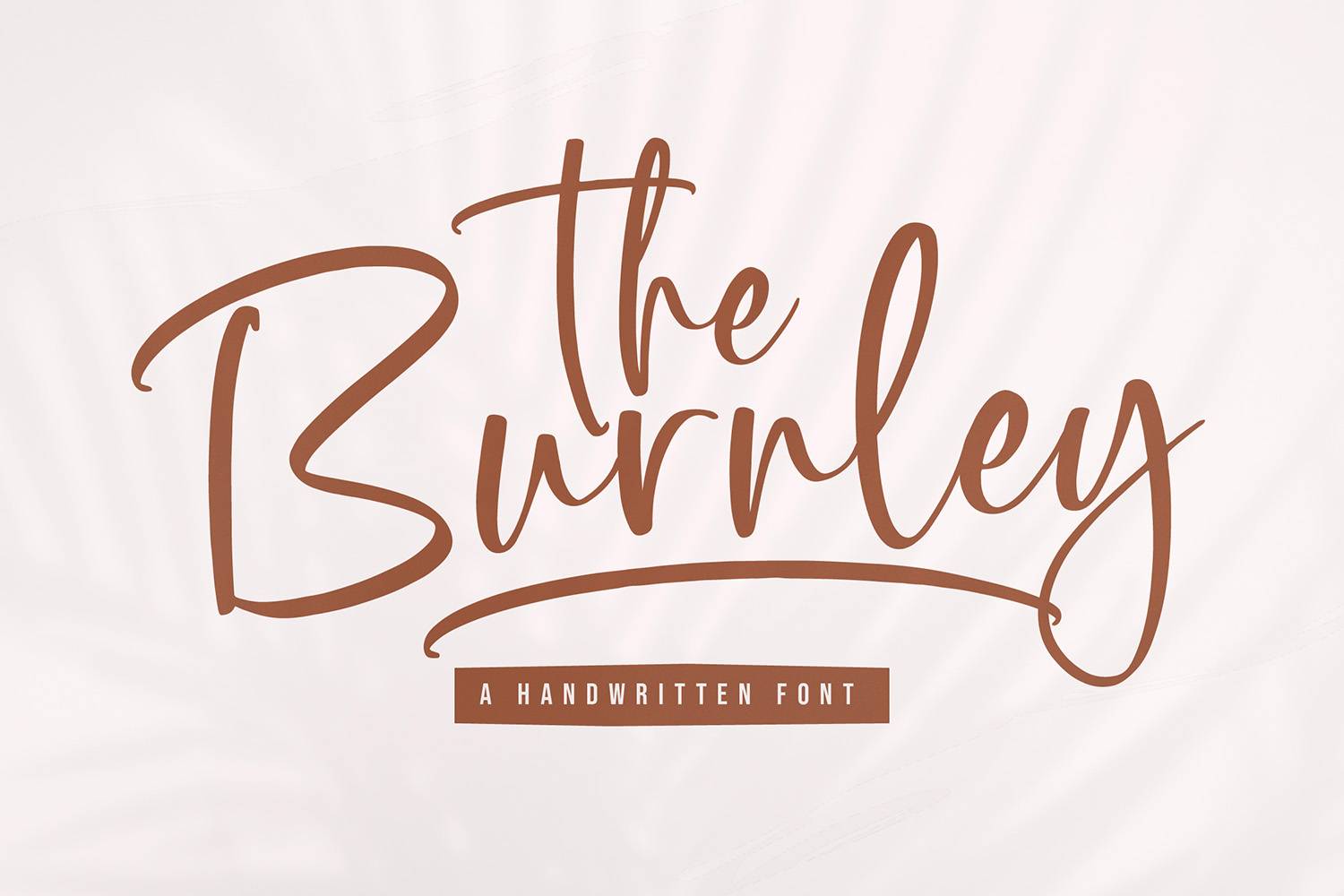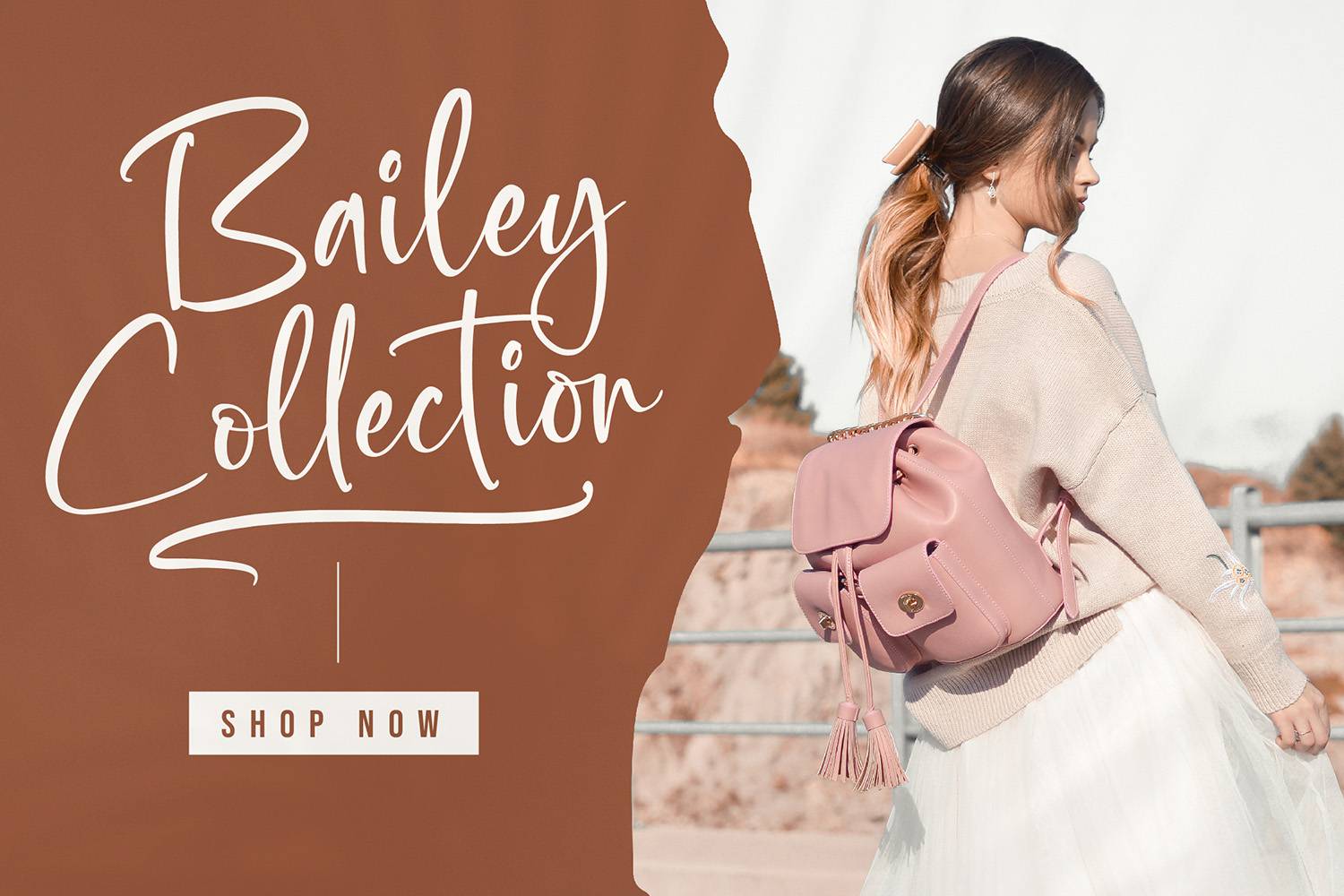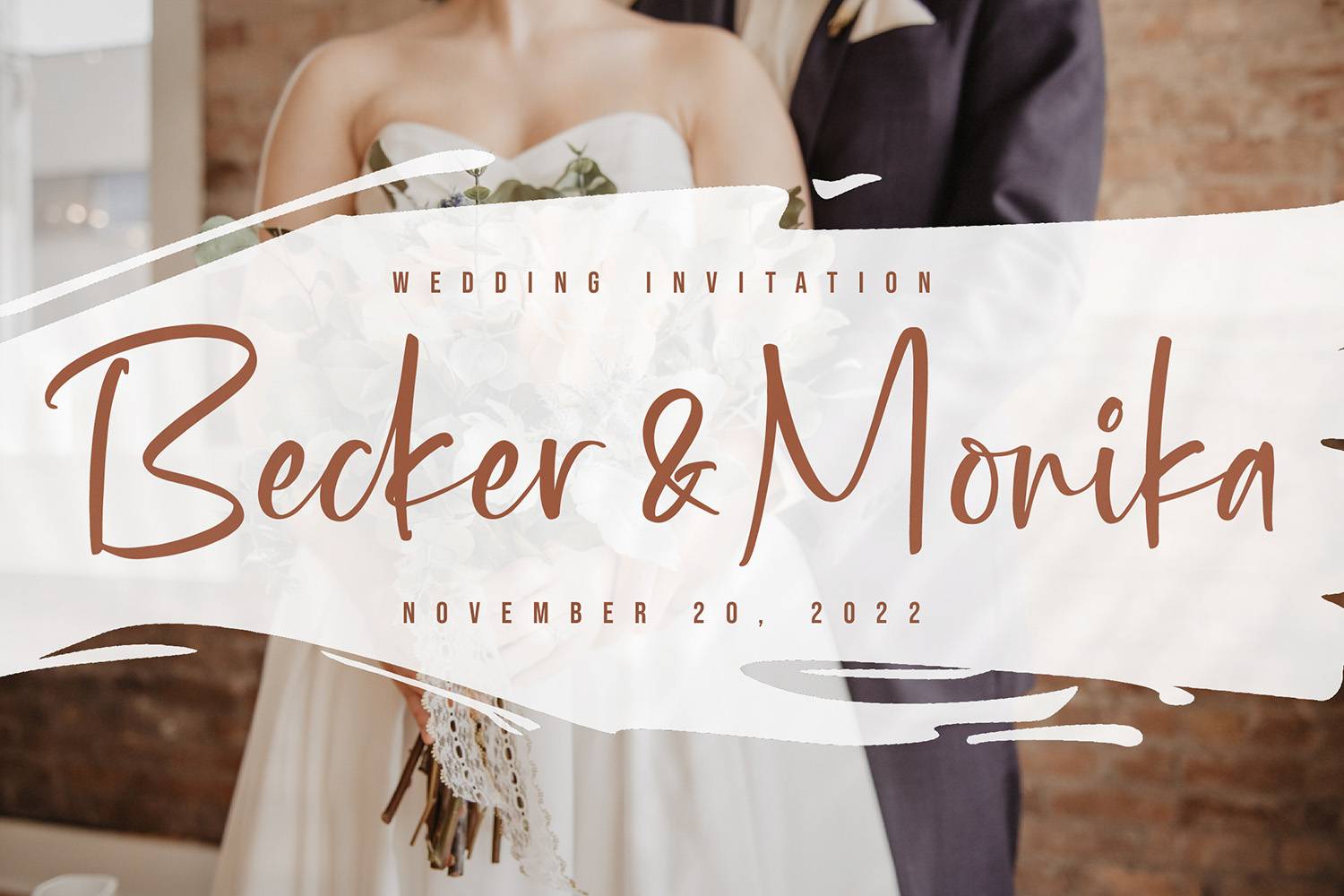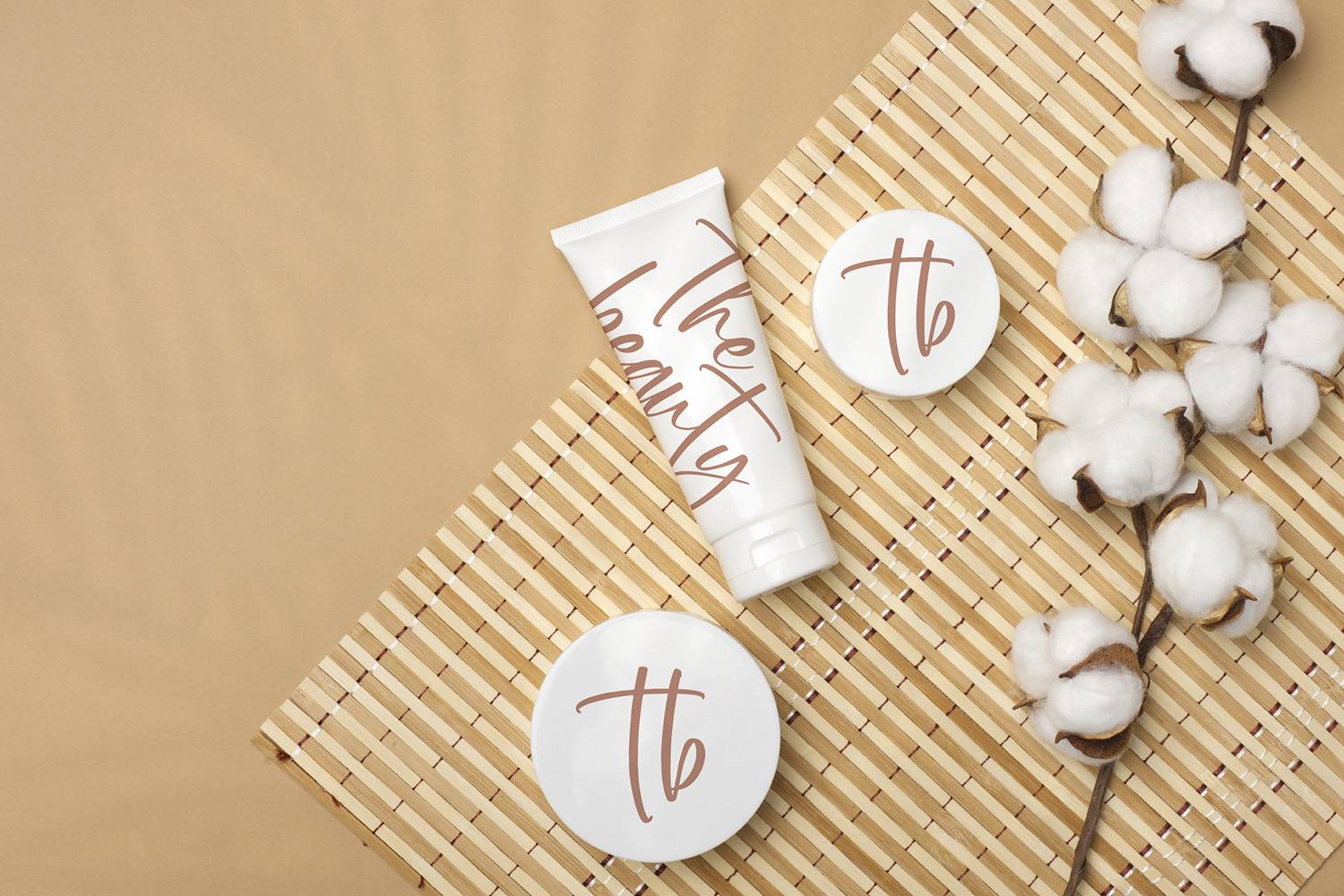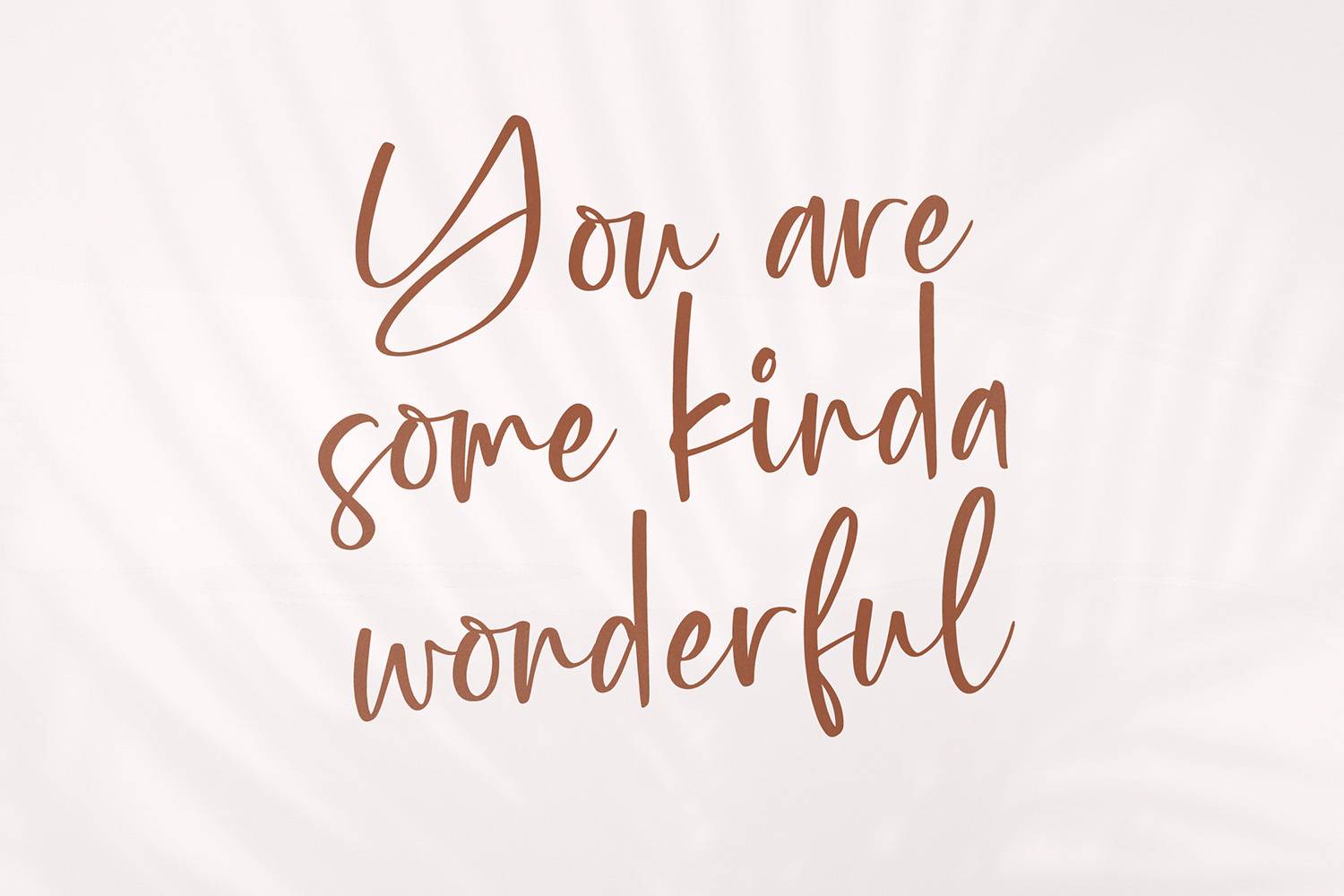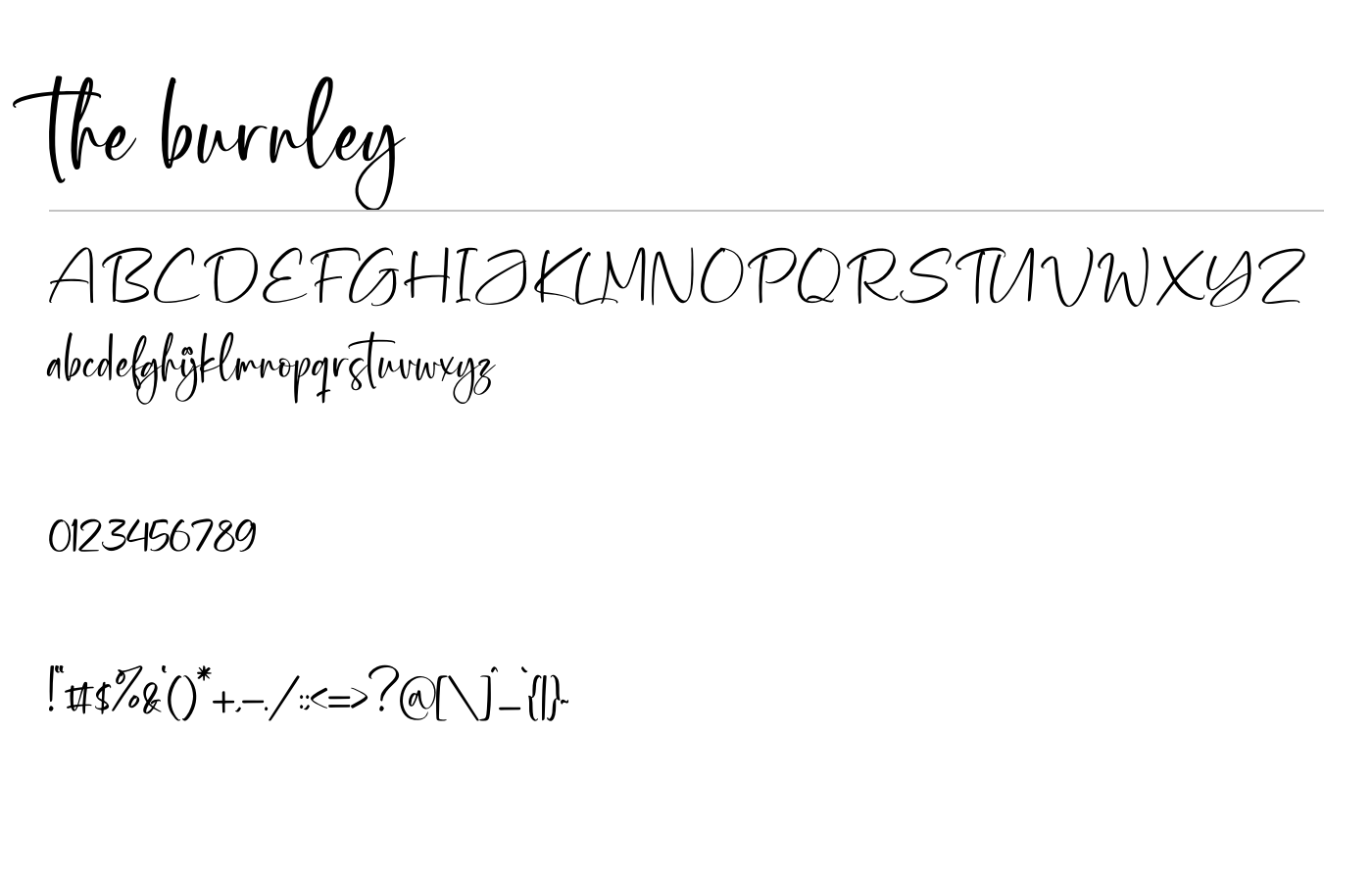
The Burnley Font is a delicate, handwritten script with a casual yet elegant feel, featuring varied stroke widths and smooth, flowing curves. Its tall, airy letterforms with distinctive loops and a combination of uppercase and lowercase styles make it perfect for invitations, branding, and creative projects that seek a personal and stylish touch. This font conveys warmth and sophistication, ideal for fashion, lifestyle, and artisanal designs.
The Burnley Font
About The Burnley Font